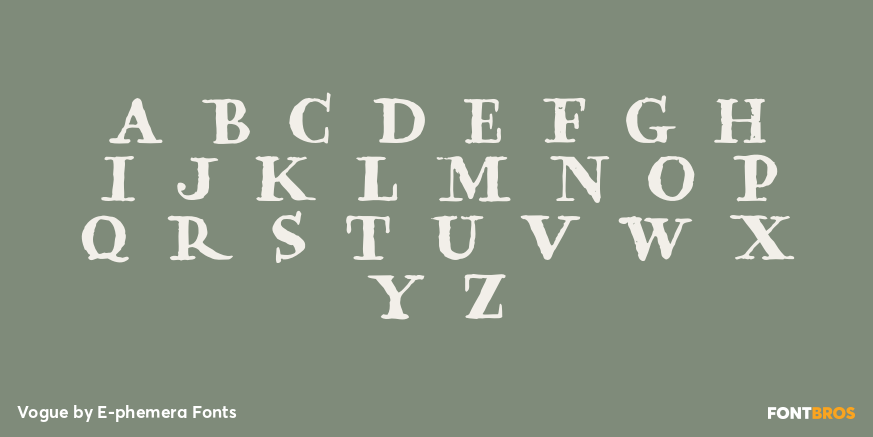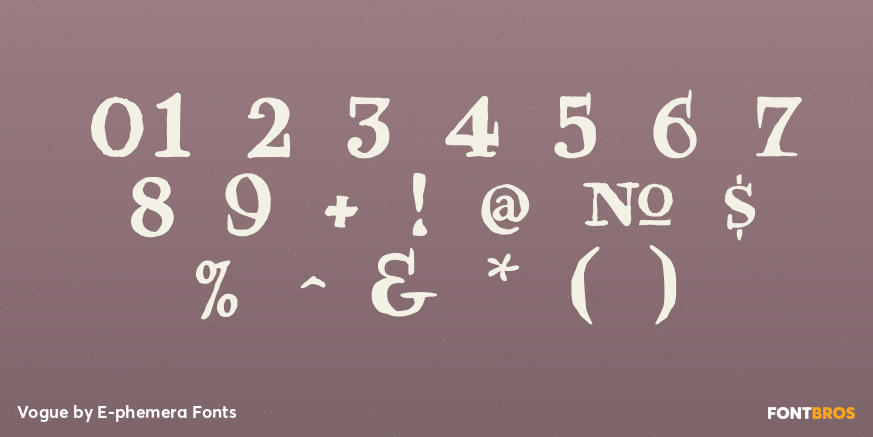
Vogue
Font Family by E-phemera Fonts
Vogue is extrapolated from some words in a 1930s brochure from Western Union called The Vogue of the Social Telegram.